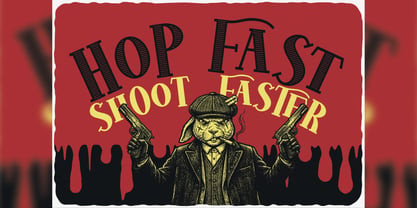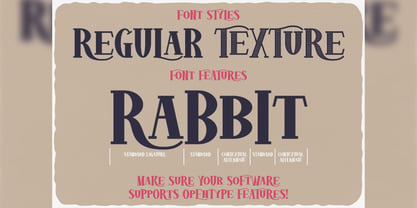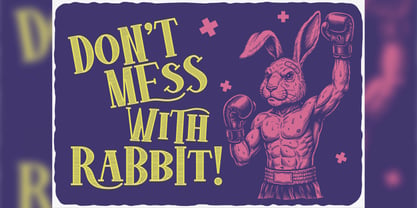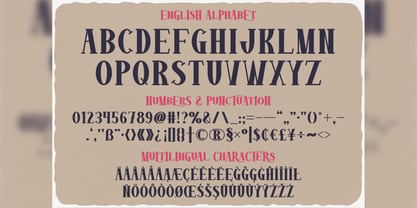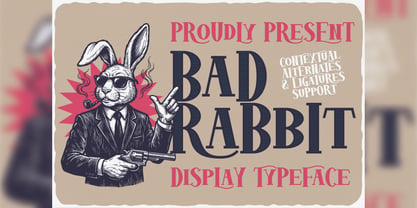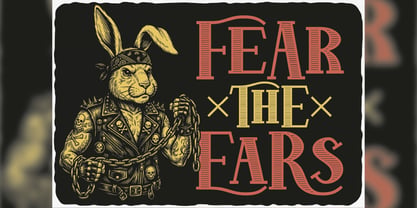
Bad Rabbit
La famille de polices Bad Rabbit a été conçue par Oleg Voznyy et publiée par Vozzy. Bad Rabbit contient 2 styles et options de package familial. En savoir plus sur cette famille
I am pleased to present a new font called “Bad Rabbit”. It is a unique font for headlines, accent inscriptions, and for attracting attention! It contains additional characters, punctuation marks, multilingual characters, and a large number of standard ligatures (make sure your software supports this open type feature). This font will look great on your beautiful designs!